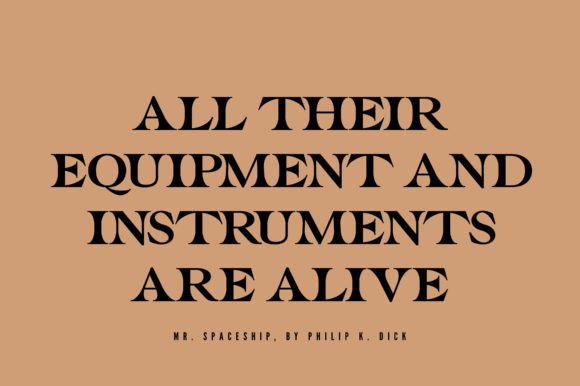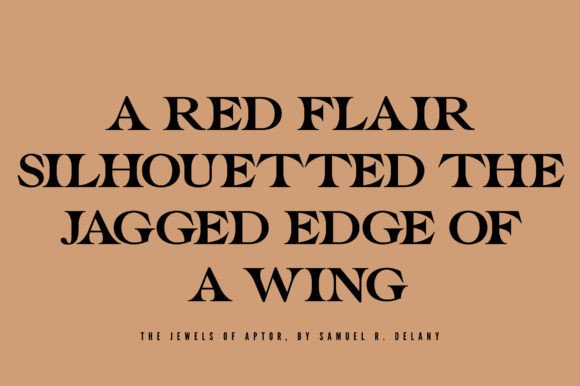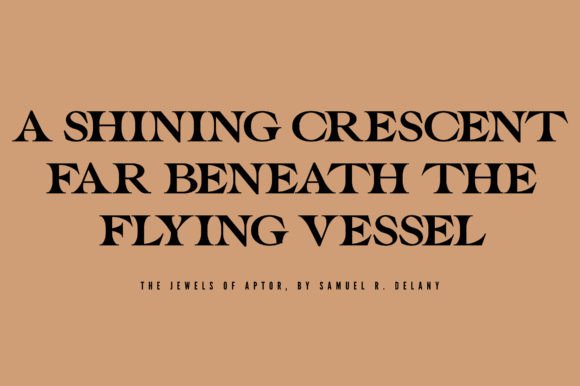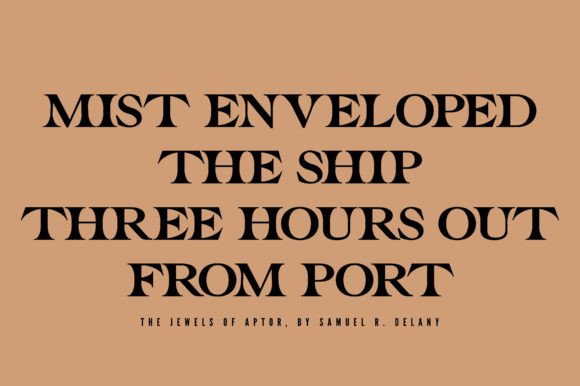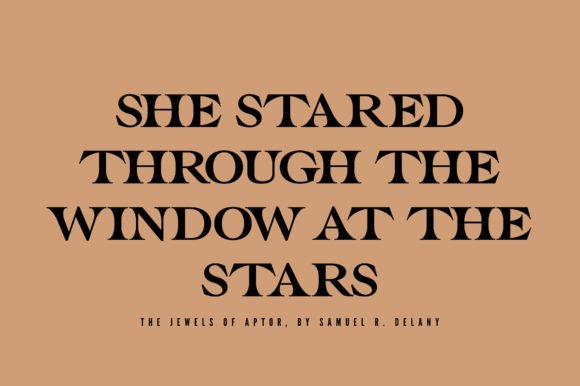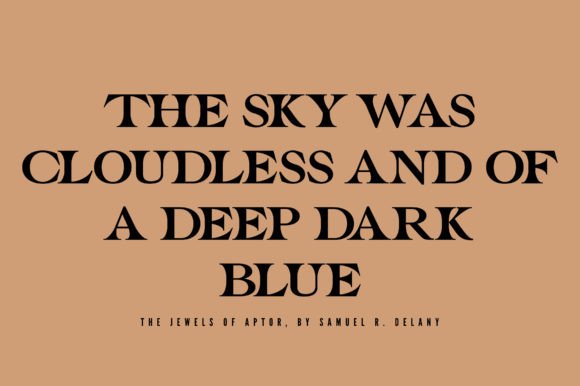
Introduction to Dermik Font
Enter Dermik Font, a stunning and refined serif font that’s about to become your new go-to design resource. With its chic and elegant design, Dermik offers a wide range of possibilities for creative expression, making it perfect for high-quality projects that demand a touch of sophistication.
Key Features of Dermik Font
- High-quality design suitable for creative projects, with a clean and modern aesthetic.
- Includes a range of characters, including uppercase and lowercase letters, numbers, and special characters.
Honest Review: Dermik Font
I recently had the chance to try out the Dermik Font for a creative project, and I was pleasantly surprised by its high quality. This free download is a great addition to any designer’s toolkit, offering a unique and versatile font that’s perfect for a wide range of applications.
One of the standout features of the Dermik Font is its transparent background, making it easy to use in various design scenarios. Whether you’re working on a logo, brochure, or website, this font is sure to add a touch of elegance and sophistication.
- Unique and versatile font that’s perfect for a wide range of applications
⚠️ One limitation of the Dermik Font is its limited character set, which may not be suitable for longer blocks of text. Additionally, the font may not be as readable in smaller sizes.
Overall, I’m impressed with the Dermik Font and would definitely recommend it to designers looking for a high-quality, free design resource.
Common Use Cases for Dermik Font
Dermik Font is suitable for a variety of creative projects, including logos, social media graphics, brochures, posters, presentations, and documents. It is also a great resource for designers who need a high-quality font with a transparent background for their design projects.